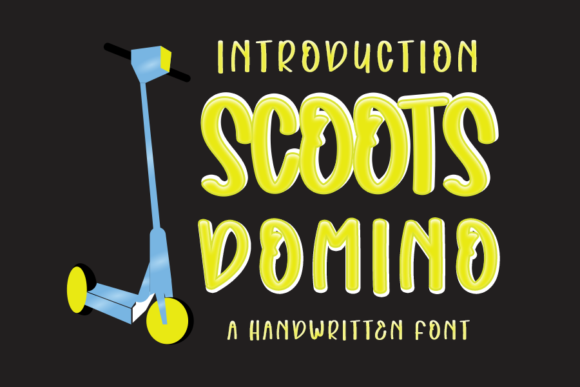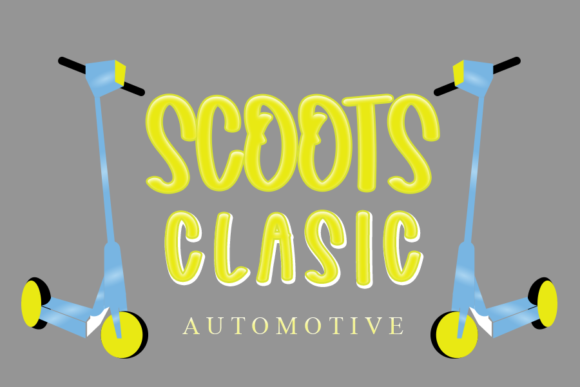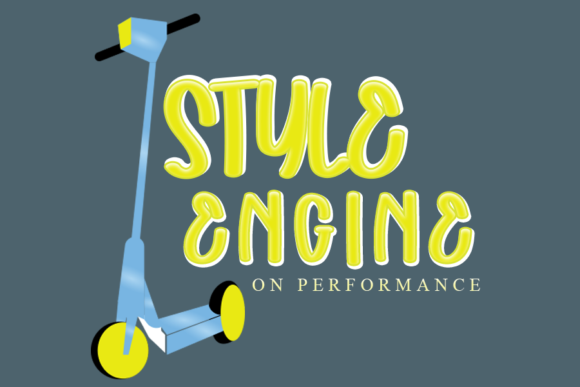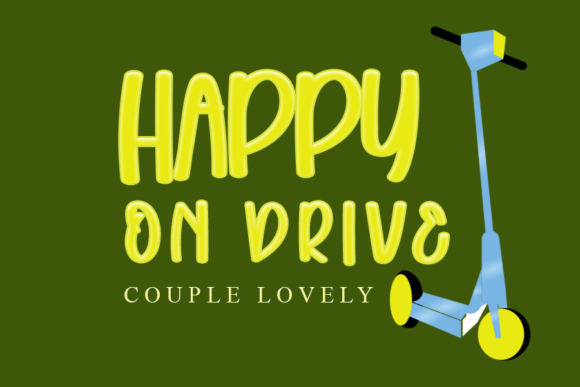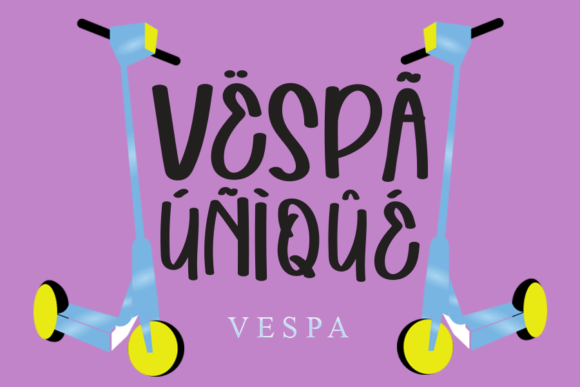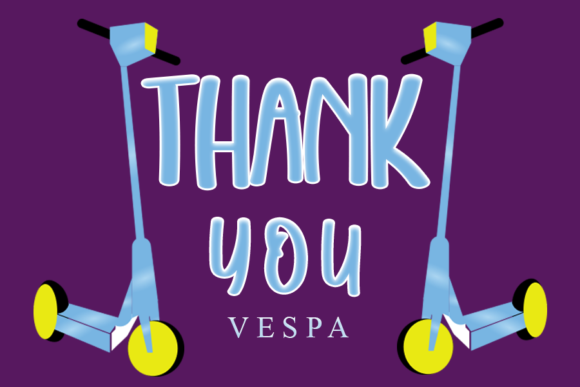
Scoots Domino Font
About Scoots Domino Font
Scoots Domino is a beautiful and attractive handwritten font. This enchanting font will turn any creative idea into a true standout.